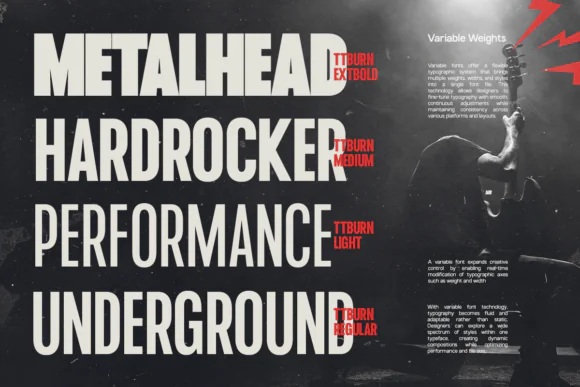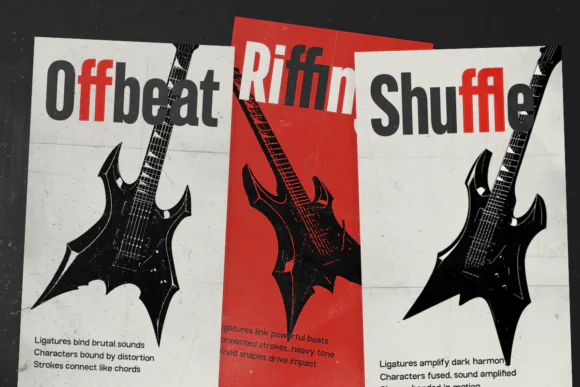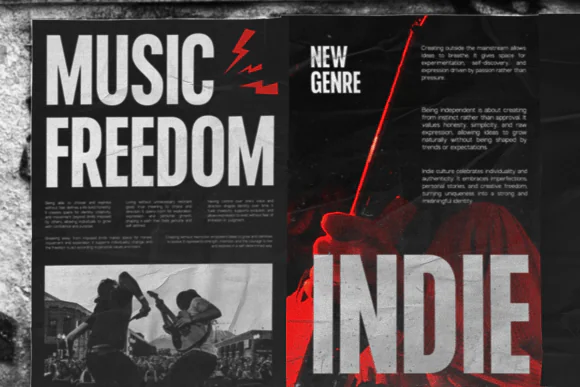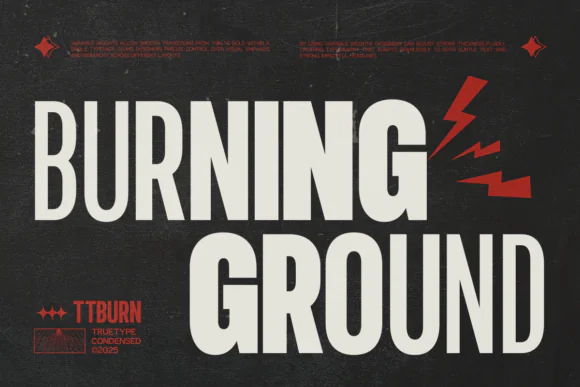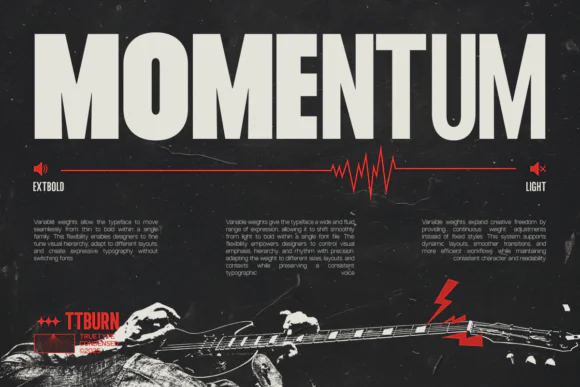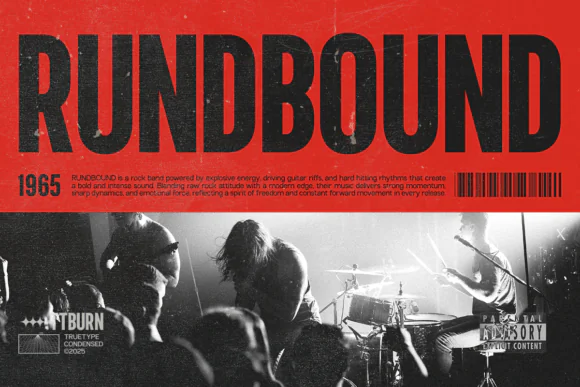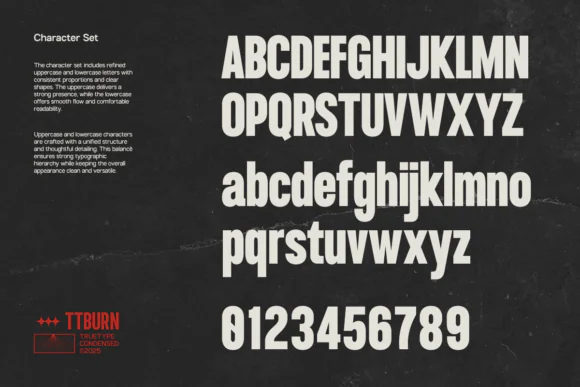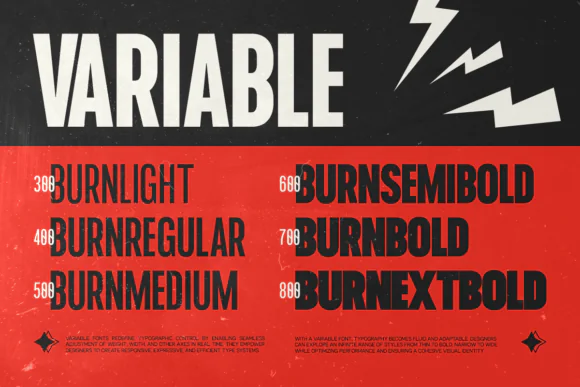
TRT Burn Condensed Sans Serif Font – Modern Compact Typeface for Branding, Headlines, Posters, Packaging, Editorial Layouts, Advertising, Web UI & Professional Digital Designs
Create strong, modern, and space-efficient typography with TRT Burn Font, a condensed sans serif typeface designed for visual impact, clarity, and professional design use. With its compact width, confident vertical proportions, balanced stroke contrast, and refined geometric structure, this font helps your text stand out while keeping layouts clean and readable.
TRT Burn Font is ideal for branding, headlines, editorial design, advertising, posters, packaging, website layouts, UI design, web interfaces, digital products, social media graphics, promotional banners, product labels, magazine layouts, business presentations, and modern print materials. Its condensed construction allows you to fit more content into tighter spaces without losing legibility, making it especially useful for space-conscious layouts and structured brand systems.
Whether you are designing a bold headline, a sleek brand identity, a clean packaging label, a modern website interface, or a professional advertising campaign, TRT Burn Font delivers a focused and reliable typographic voice for both print and digital environments. It is a great choice for designers, agencies, branding specialists, marketers, startups, UI designers, and digital product creators who need a modern condensed font with strong presence and excellent usability.
Branding, headlines, posters, packaging, editorial layouts, advertising, web interfaces, UI design, digital products, product labels, social media graphics, magazine layouts, promotional banners, business presentations, modern websites, and professional print designs.
Key Features
• Modern condensed sans serif font style
• Compact width for space-conscious layouts
• Confident vertical proportions for strong impact
• Balanced stroke contrast and refined geometry
• Clean, professional, assertive, and highly legible
• Great for both display and functional text applications
• Suitable for print, digital, branding, UI, and advertising projects